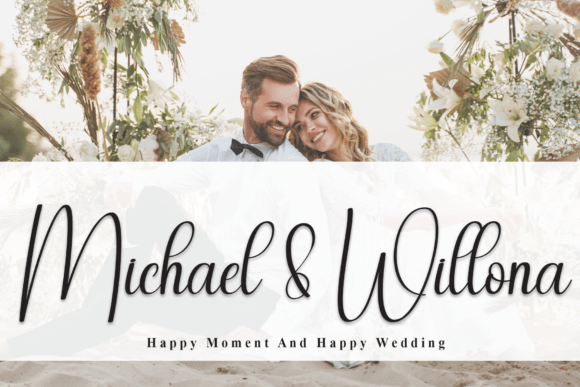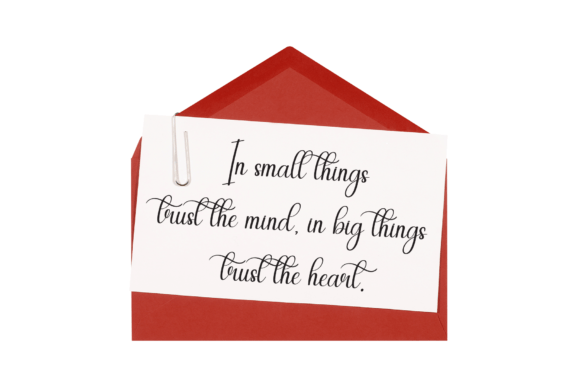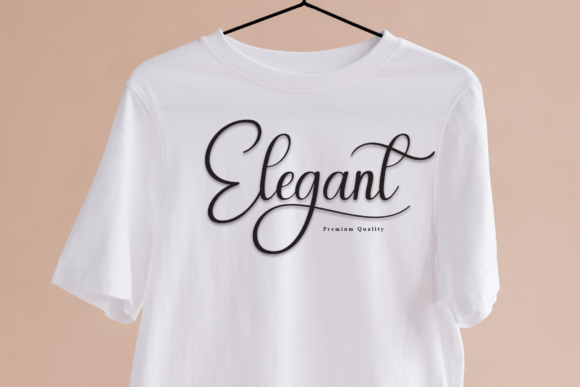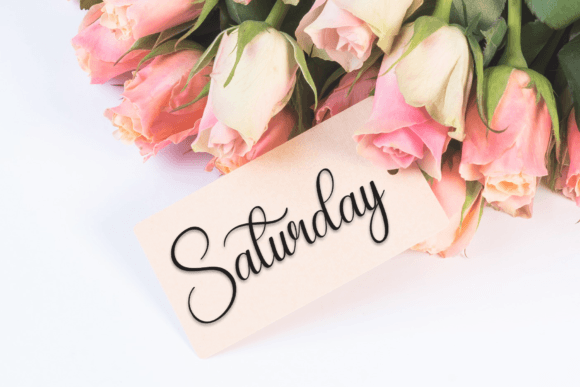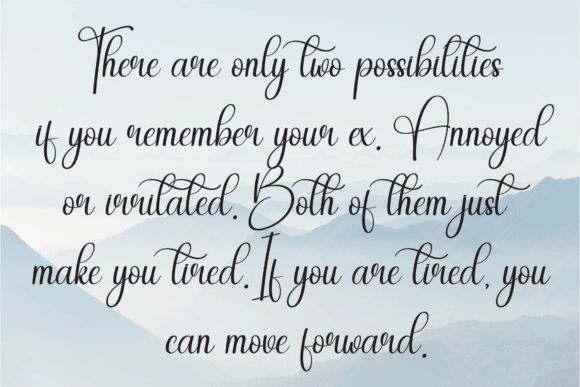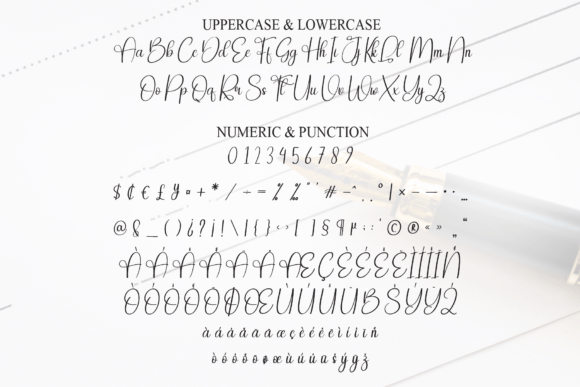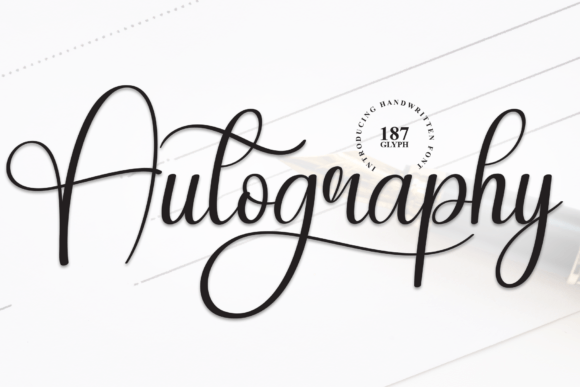
The Elegance of Autography Font: A Designer’s Delight
I’ll never forget the time I was working on a wedding invitation project, and my client asked for a font that exuded elegance and sophistication. I scoured the internet, tried countless fonts, but nothing seemed quite right. That was until I stumbled upon Autography Font. Its flowing, graceful curves instantly caught my eye, and I knew I had found the perfect fit. In this article, I’ll share my experience with Autography Font, its features, and how to make the most of it in your designs.
A Personal Review of Autography Font
• ✨ Elegant and sophisticated design that’s perfect for high-end projects
• ✅ Flowing, graceful curves that add a touch of warmth and personality to any design
• 💫 Delicate strokes that bring creativity and whimsy to your projects
• 🎨 Highly versatile and can be used for a wide range of design applications, from invitations to logos and branding
While Autography Font is an excellent choice for many projects, there are a few things to keep in mind:
• ⚠️ The font’s delicate strokes can be challenging to read in small sizes, so it’s best used for headlines or titles.
• 🤔 Some users may find the font’s script style too ornate or over-the-top for certain projects.
A Practical Guide to Using Autography Font
The Backstory of Autography Font
Autography Font was designed by a team of typographers who wanted to create a font that captured the essence of handwritten elegance. Inspired by classic calligraphy and modern script fonts, Autography Font is the result of meticulous craftsmanship and attention to detail. The font’s creator aimed to design a font that would add a personal touch to any design, while maintaining a level of sophistication and refinement.
Font Name Autography Font
Author Misterletter.co
Q: What is Autography Font?
A: Autography Font is a stylish handwritten script font designed for creative professionals and hobbyists.
Q: What can I use Autography Font for?
A: Autography Font is perfect for a wide range of design applications, including invitations, logos, branding, and more.
Q: Is Autography Font easy to read?
A: Autography Font’s delicate strokes can be challenging to read in small sizes, so it’s best used for headlines or titles.